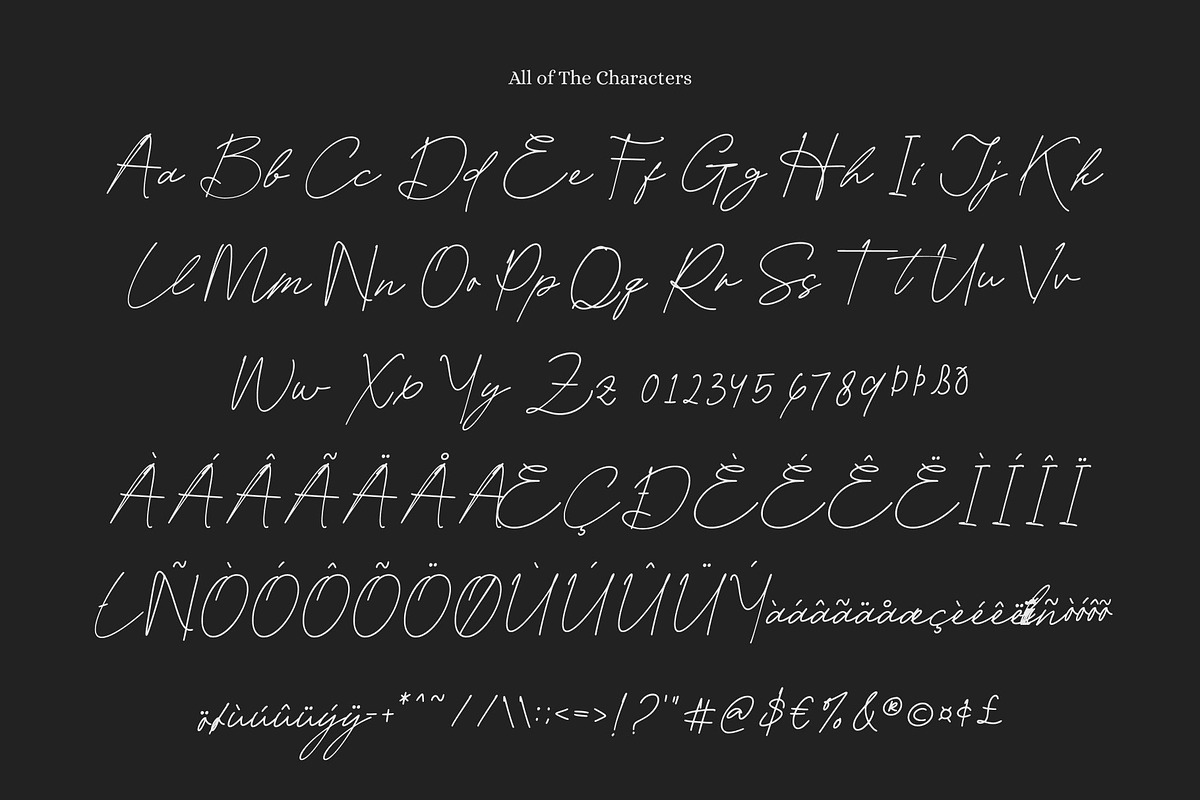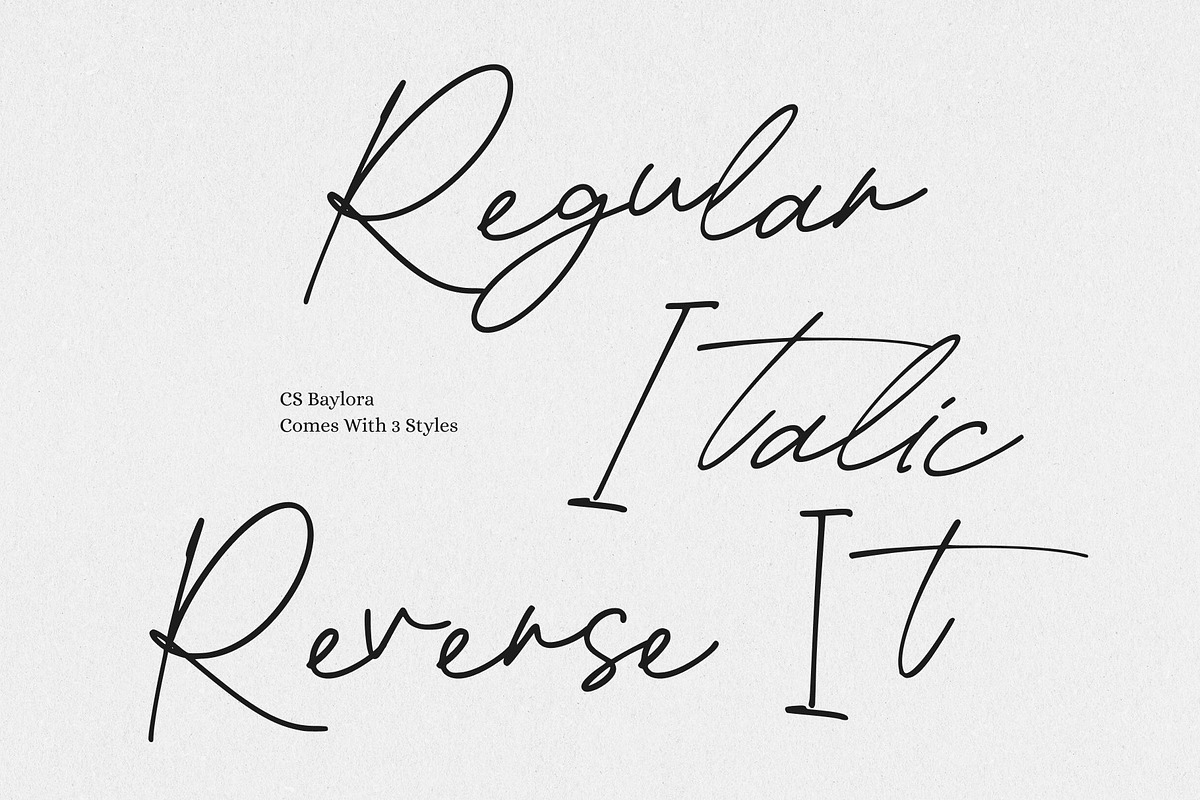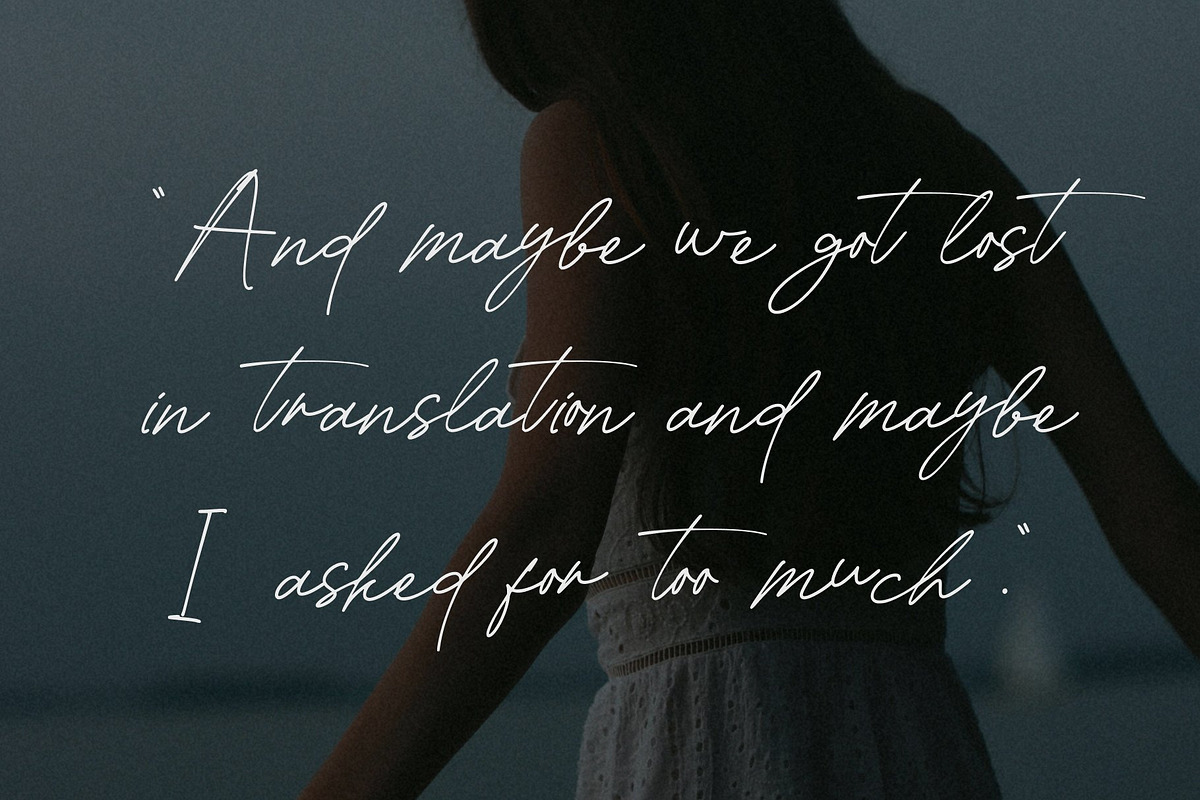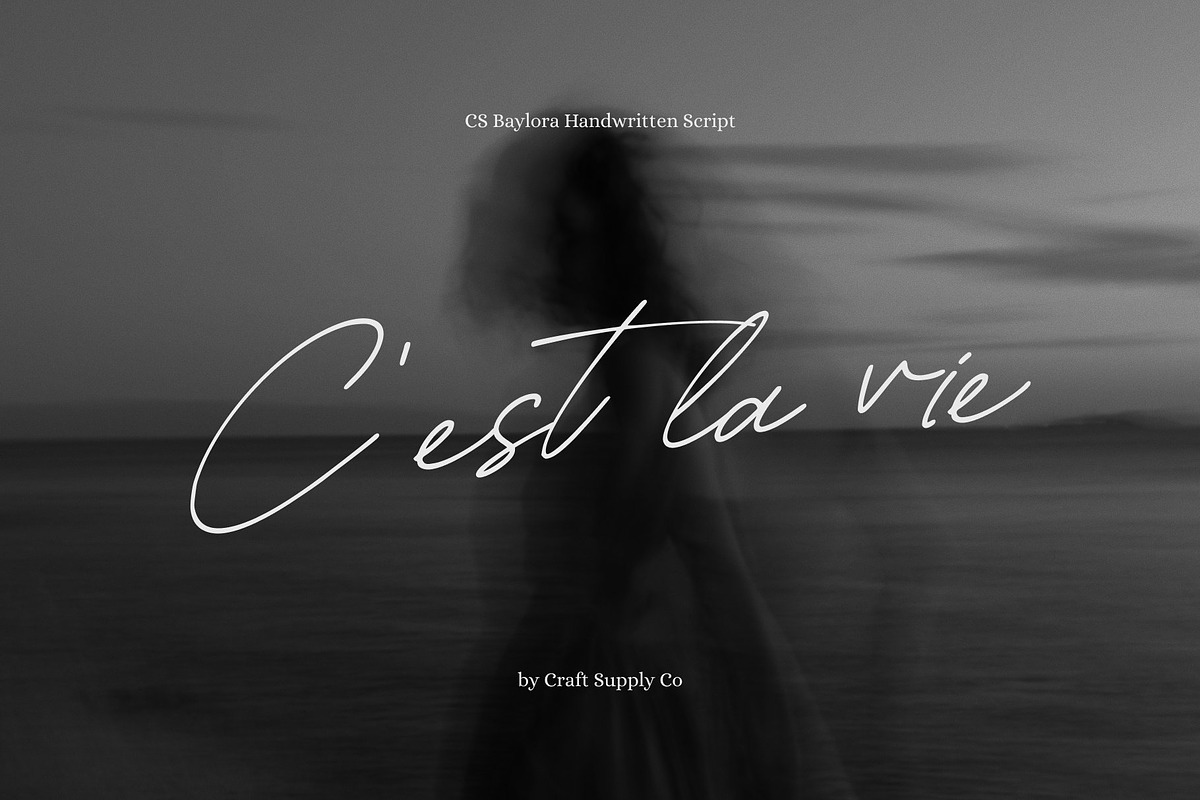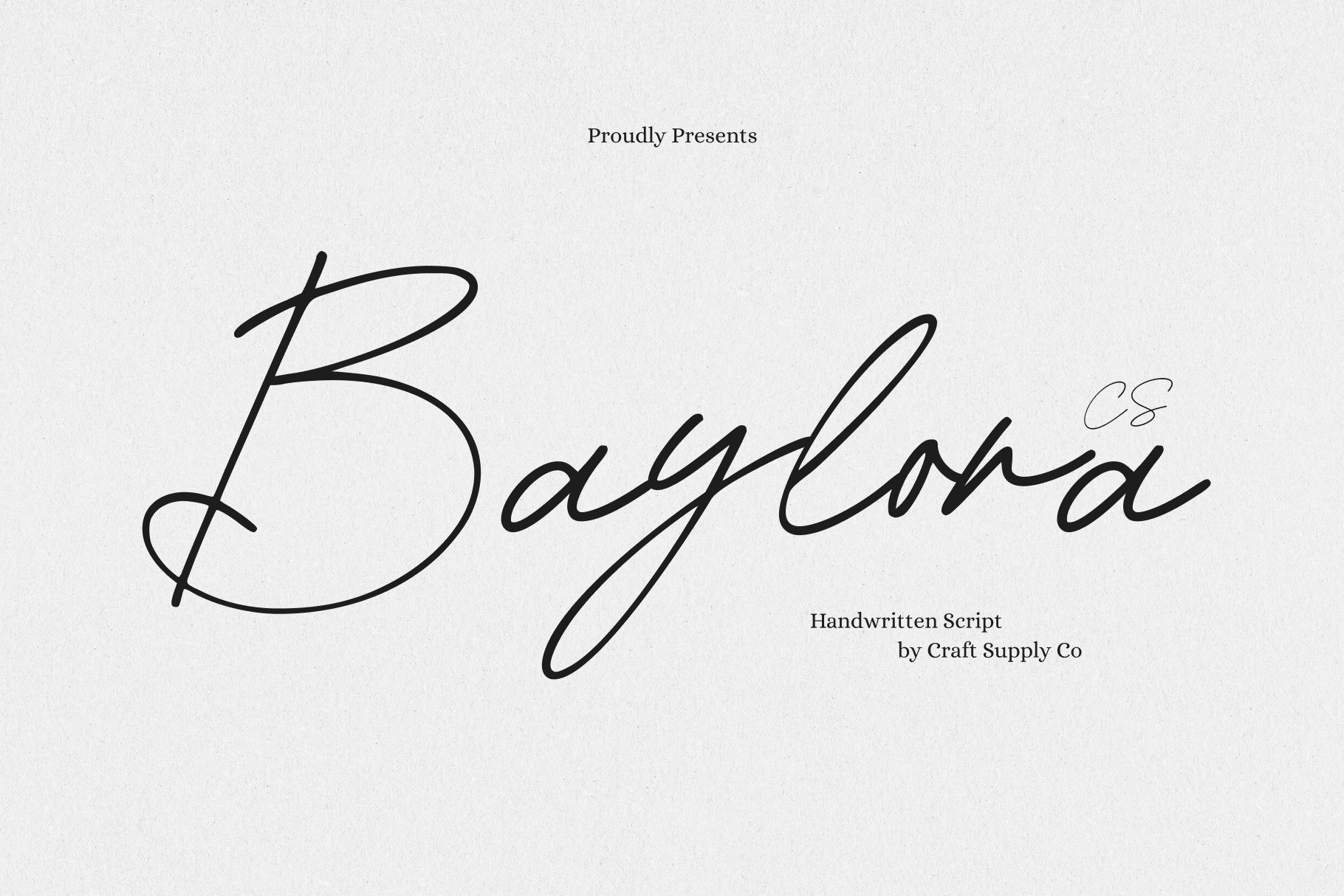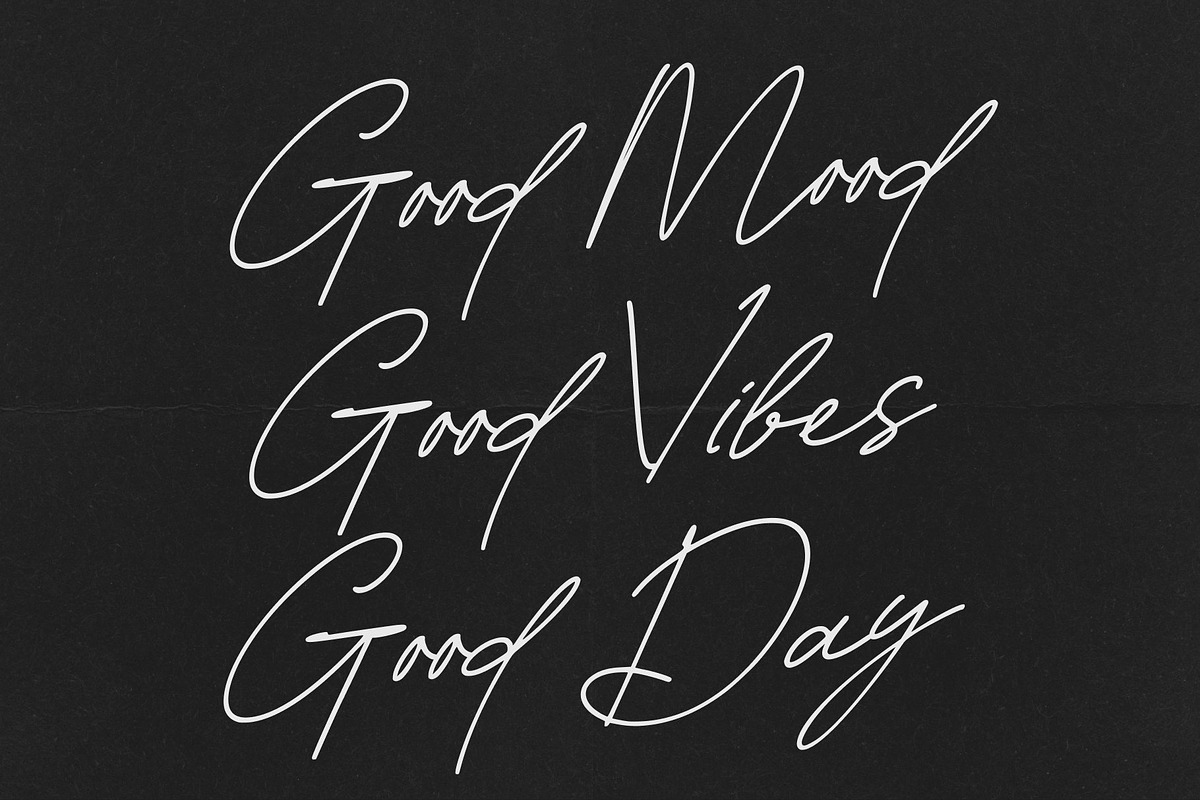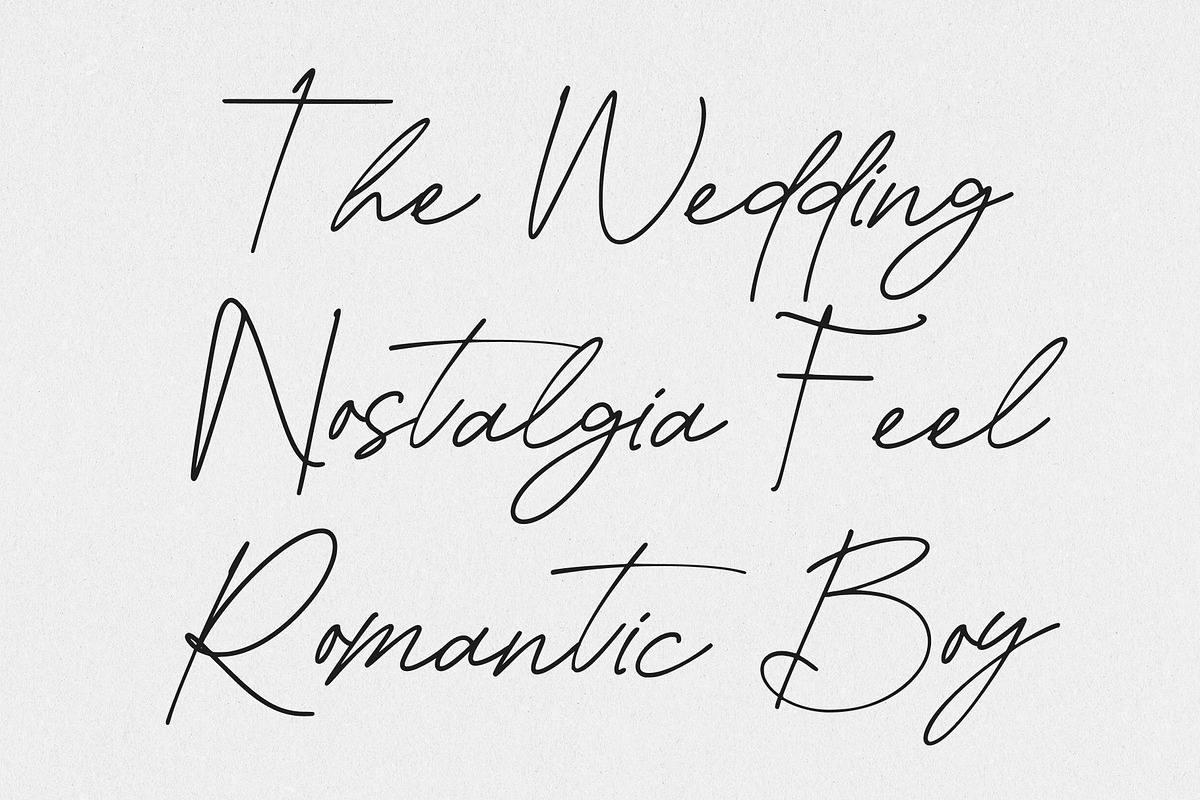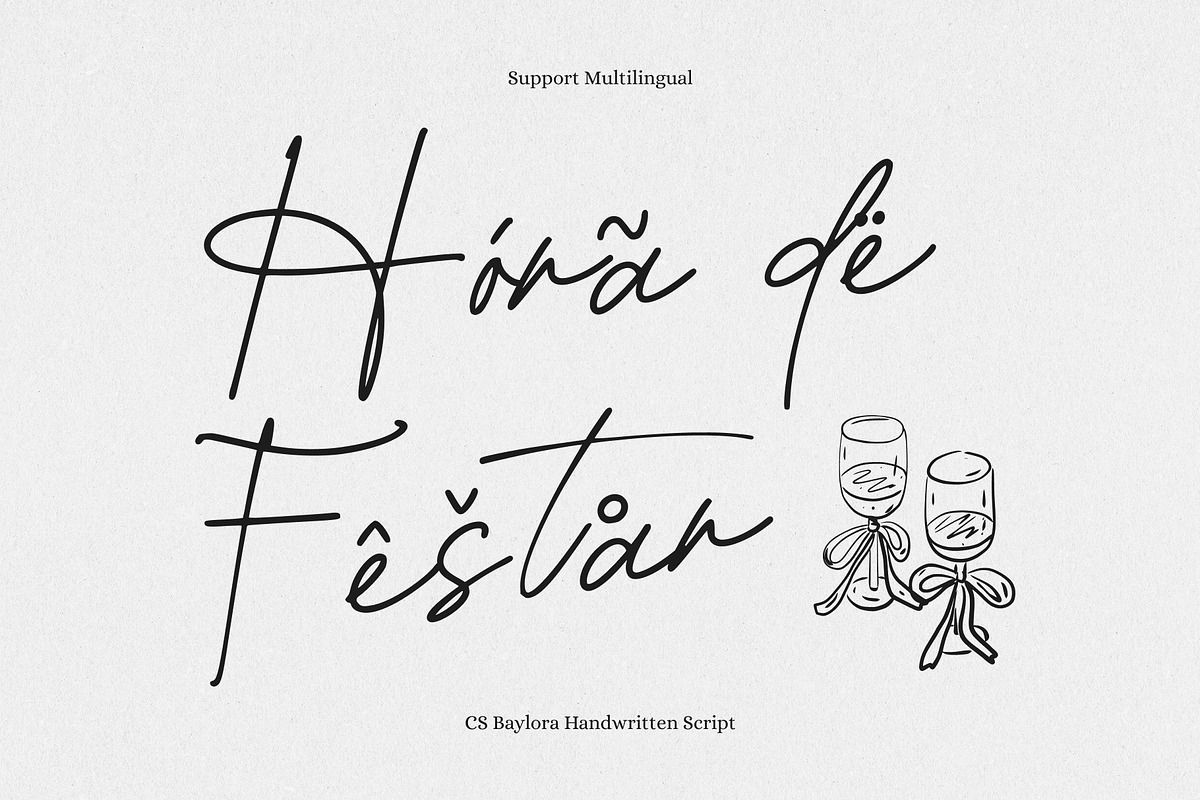
CS Baylora – Signature Script Font
CS Baylora – Elegant Signature Script with Personal Sophistication
Handwritten Elegance with Personal Charm This is a signature script font crafted to capture the fluid beauty and exclusivity of real handwritten signatures. Each stroke flows smoothly with natural curves and subtle variations, giving the font an authentic and personalized feel.
Smooth Signature Flow for Refined Aesthetics The elegant, flowing lines of this font create a luxurious impression in every letterform. Its script style imitates the effortless movement of ink on paper, delivering a genuine handwritten effect that feels both intentional and artistic. This smooth flow enhances visual harmony and makes the font perfect for applications that require a touch of exclusivity and personal presence.
Unique Character for Stylish Visual Identity This font stands out with its unique signature personality. Its expressive curves and delicate details infuse designs with individuality, helping brands and creatives communicate authenticity and style. Whether used subtly or boldly, the font adds a distinct charm that elevates the overall aesthetic.
Perfect for Logos, Branding, and Luxury Invitations Designed for high-end and elegant projects, excels in logos, branding, and luxury invitations. It works beautifully for boutique identities, personal monograms, product packaging, event stationery, and upscale editorial designs. From premium brand signatures to stylish name marks, brings refined beauty and a luxurious handwritten touch to every creation.
- CS Baylora Regular
- CS Baylora Italic
- CS Baylora Reverse Italic